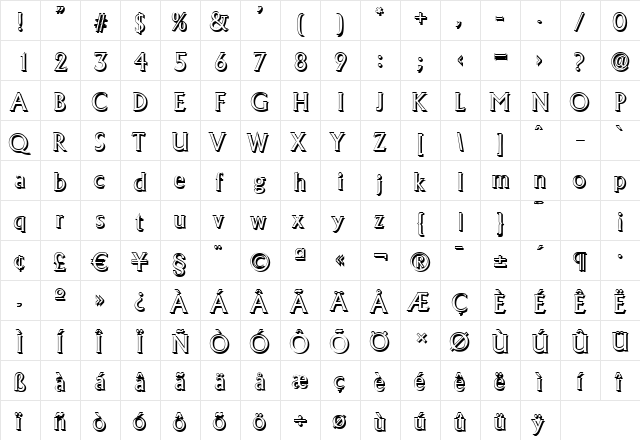
JacobBeckerShadow Regular Font Preview
JacobBeckerShadow Regular
JacobBeckerShadow Regular Font Details
Design Context for JacobBeckerShadow Typeface
JacobBeckerShadow is built around its visual character rather than neutral utility — its distinctive forms are designed to make an impression at display sizes.
Font Pairing: Pair with a clean neutral sans-serif for body copy to let JacobBeckerShadow's character lead without overwhelming the composition.
Pro Tip: Use JacobBeckerShadow exclusively at display sizes — it was designed to be seen, not read at length. Let a neutral companion handle body copy.